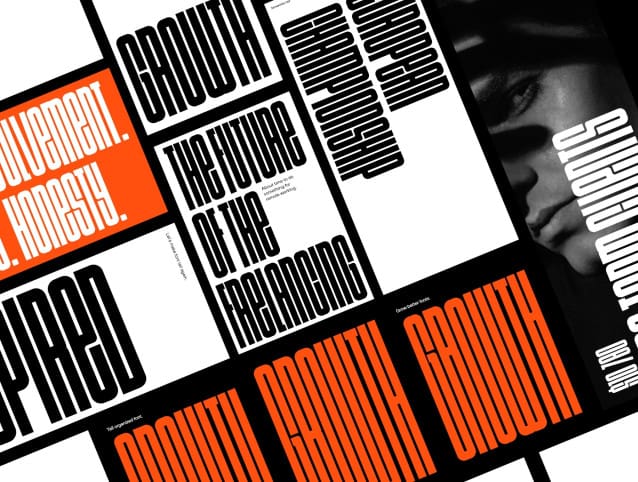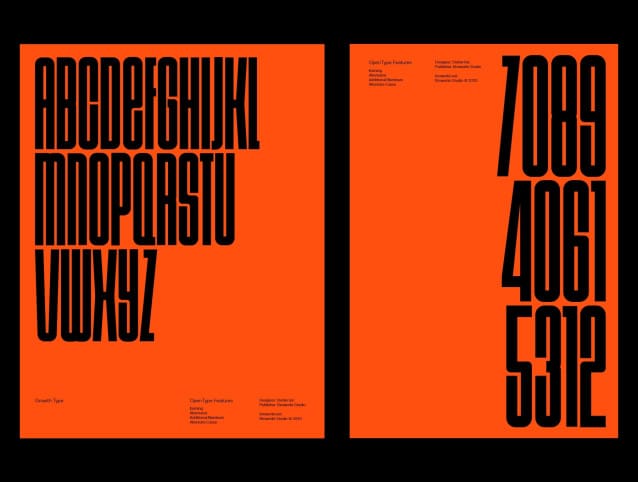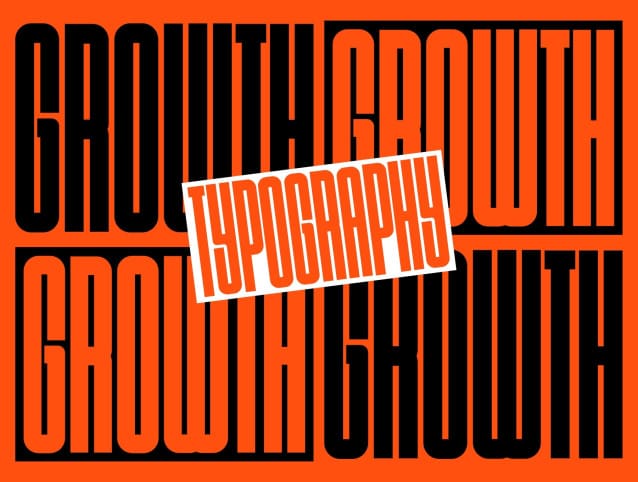
Growth Font
Growth Font is a sans-serif typeface created to be used for bold titles and modern designs. We wanted to introduce that distinctive shapes into a display fonts way to make it legible for contemporary use.
Growth Font is a neat, condensed typeface, with legible and expressive shapes. Its glyph catalog provides an easy to compose system for Latin languages with high x-height and tight line spacing.
Useful for professionals looking for a versatile sans-serif for an extensive range of design applications.
This font offers beautiful typographic harmony for a diversity of design projects, including logos & branding, social media posts, advertisements & product designs, posters, banners, websites, etc.
For this low price, we offer a full font that includes 1 font family with 62 characters. All characters are upper case, also includes numbers and other basic glyphs.